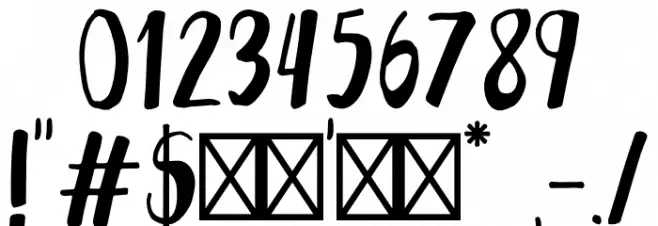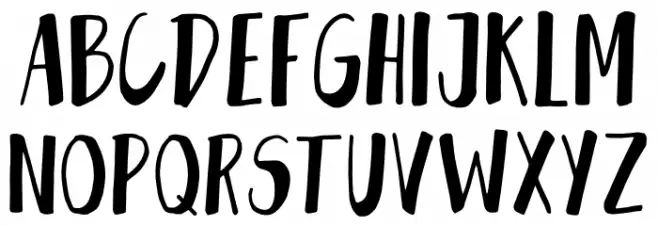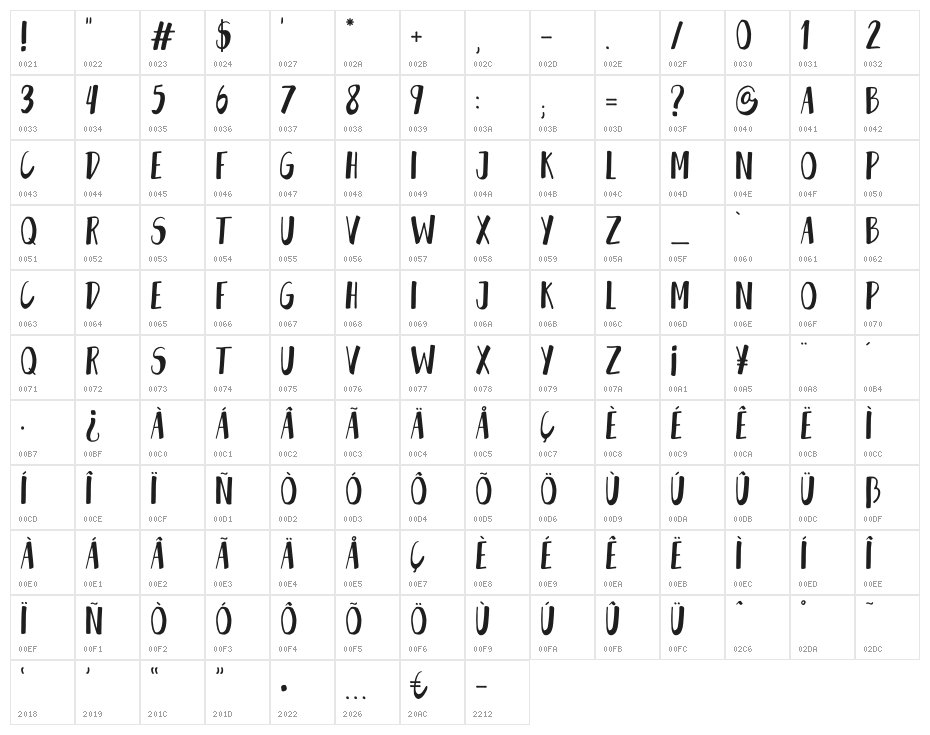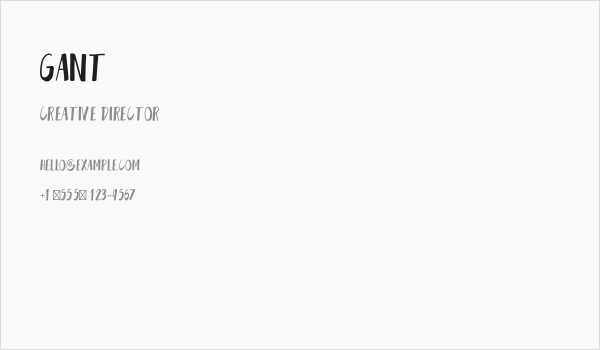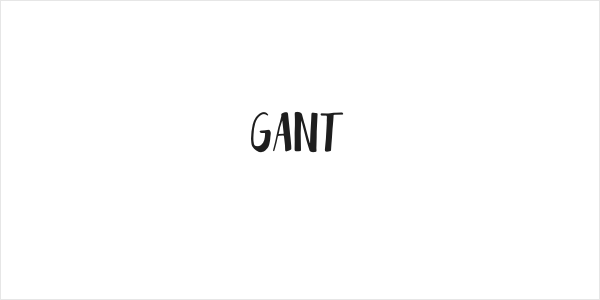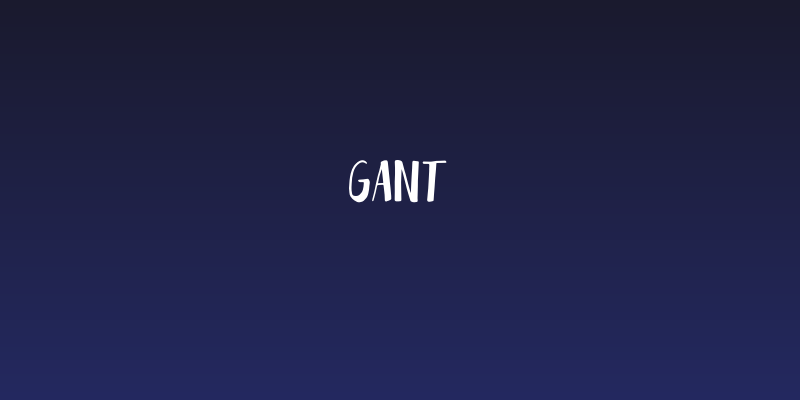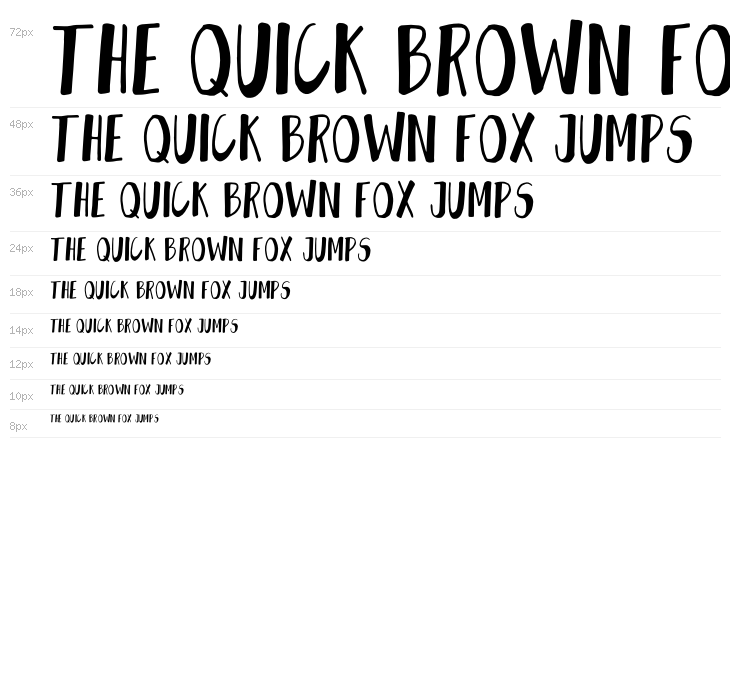
Gant Font
Gant Description
This font features a bold and playful handwritten style, characterized by its irregular strokes and dynamic flow. The uppercase letters are tall and slightly narrow, with a casual, artistic flair that adds personality to the text. The lowercase letters maintain this whimsical style, offering a consistent look throughout. The numbers are bold and easy to read, matching the overall playful aesthetic. Special characters are included, maintaining the same energetic style. This font is ideal for projects that require a fun and informal touch, such as children's books, creative posters, or playful branding.
| Overall Style | Playful, Artistic |
| Proposed Projects | Ideal for children's books, creative posters, playful branding, and informal invitations. |